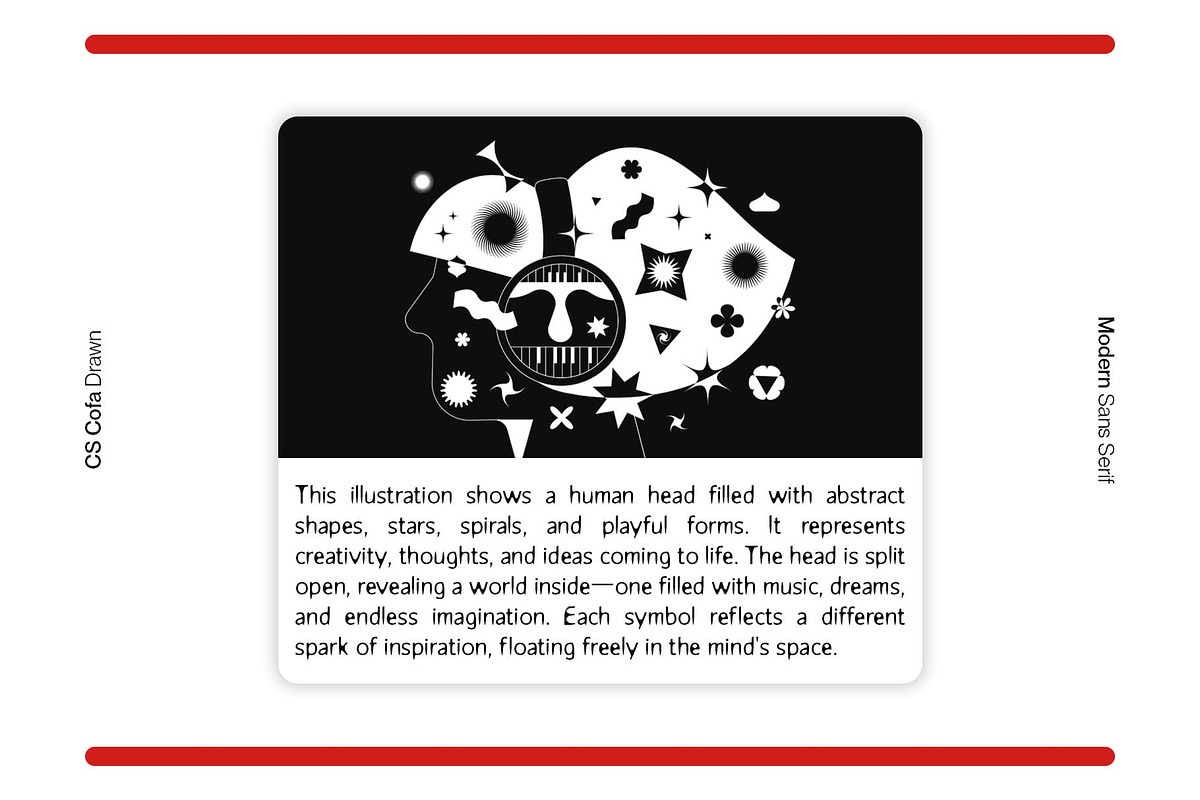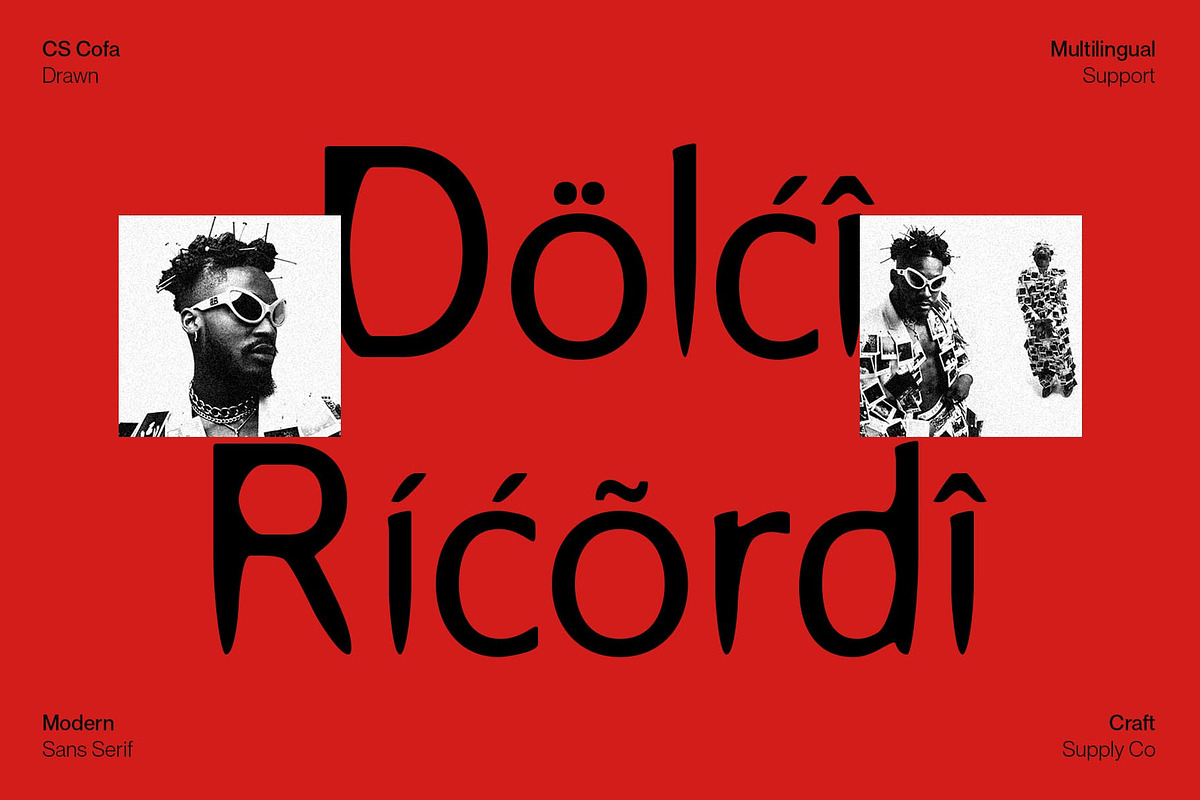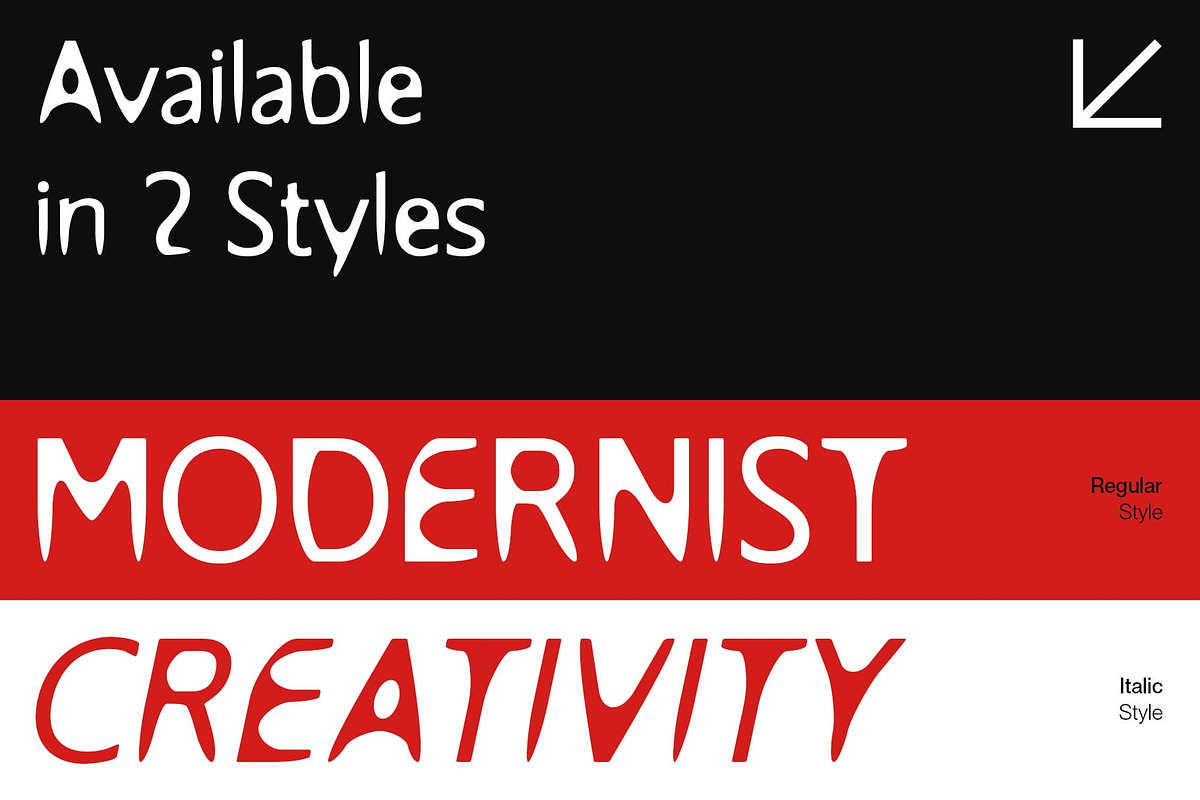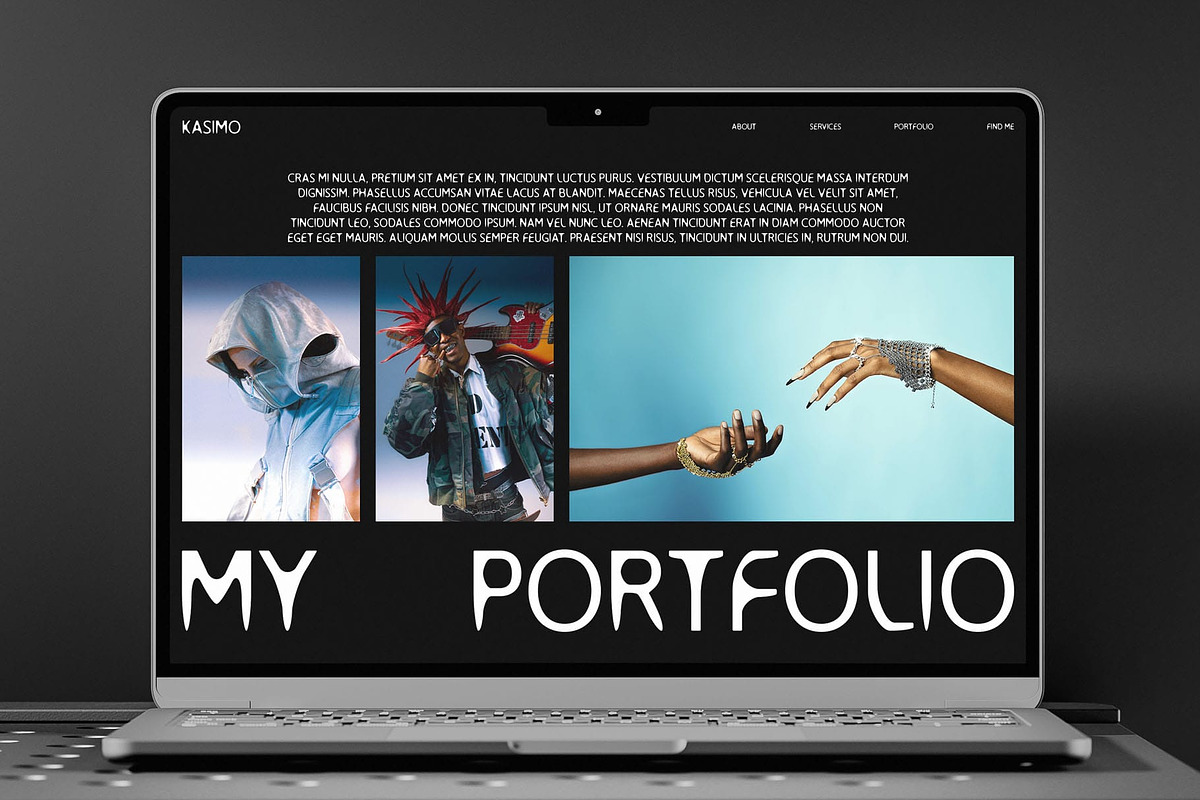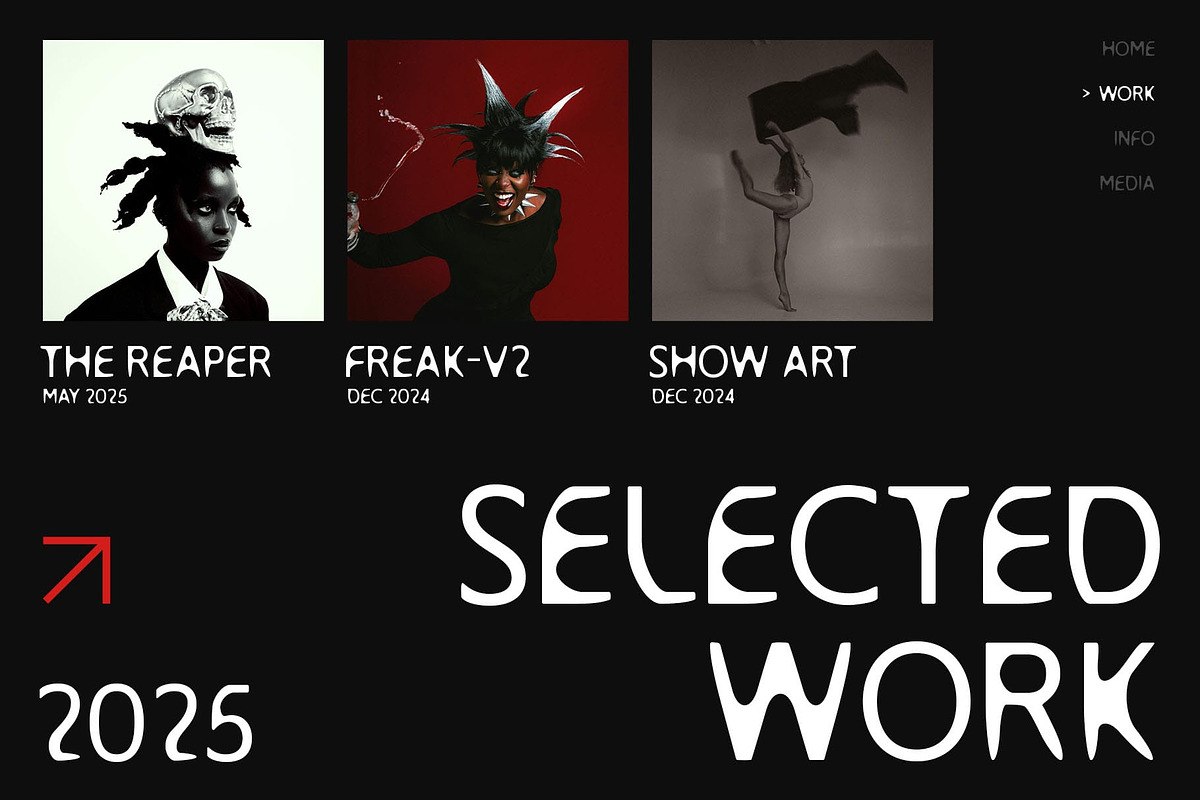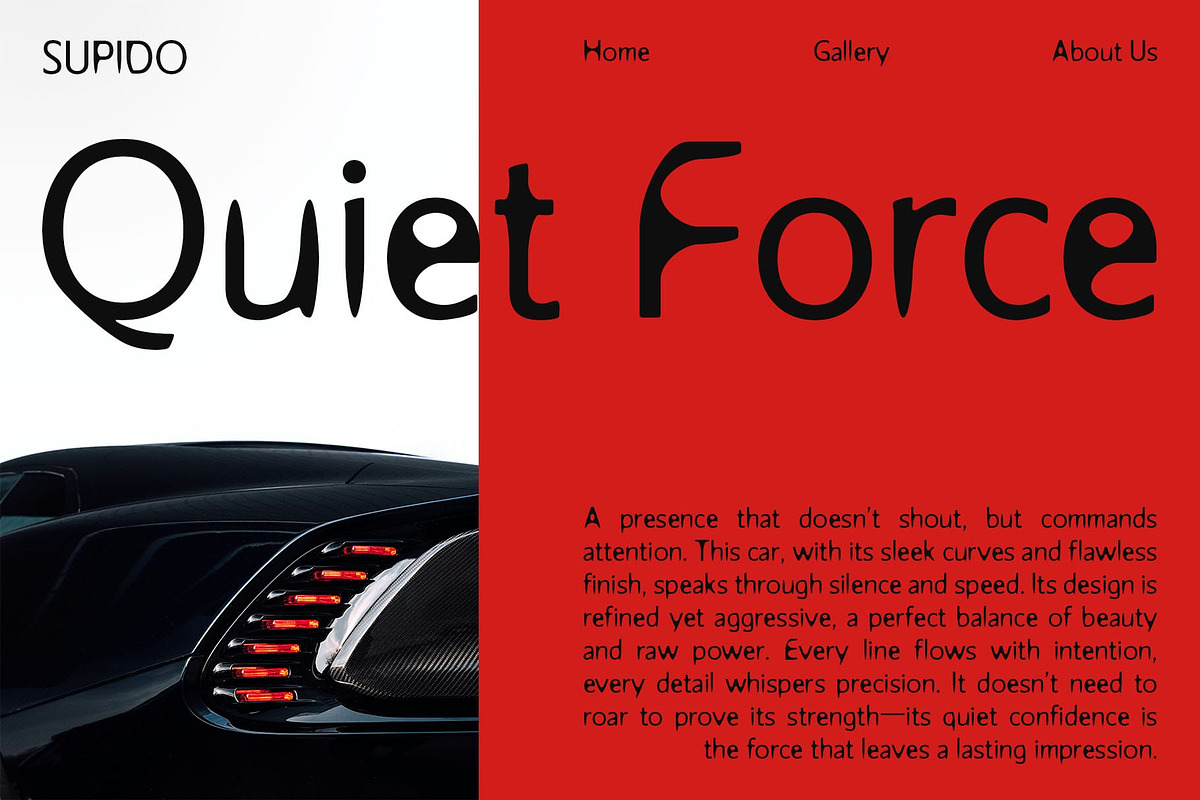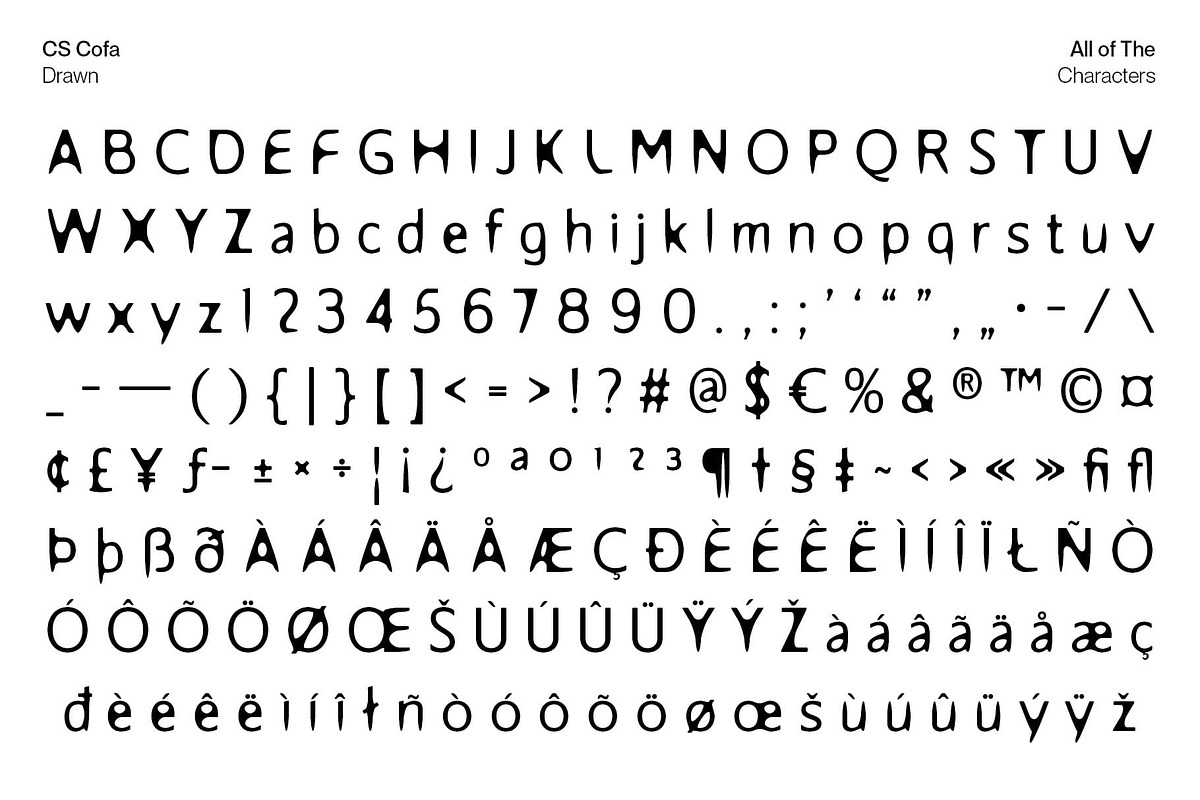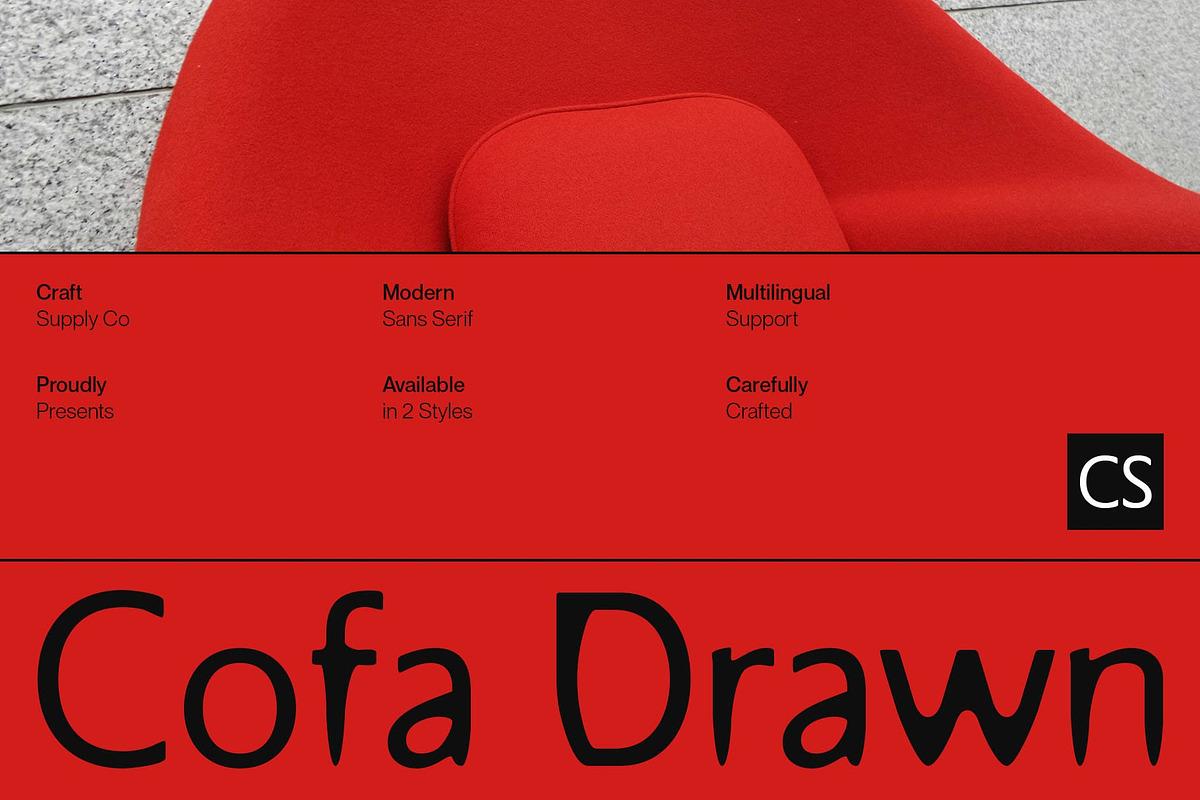
CS Cofa Drawn
CS Cofa Drawn Font – Organic Meets Precision in a Contemporary Sans Serif
Clean Geometric Form with a Humanistic Twist CS Cofa Drawn is a modern sans serif font that features sleek, clean lines and a precise geometric structure. Its foundation is rooted in clarity and professionalism, yet softened by a hand-drawn texture that adds warmth and individuality. This unique blend of structure and artistry results in a typeface that feels both modern and approachable.
Drawn Effect for Artistic Expression The drawn effect introduces an organic, slightly imperfect character that enhances visual depth and emotion. It gives the font a handcrafted look, ideal for projects seeking an expressive, personal touch while maintaining a polished appearance. This makes it especially suitable for branding identities, creative editorials, and artistic visual campaigns.
Balanced for Creative and Professional Use This expressive font strikes a perfect balance between creativity and professionalism. Its clean sans serif base ensures versatility across various design contexts, while the drawn detail adds distinction. Whether used in logos, posters, digital design, or brand visuals, it brings sophistication with a subtle artistic flair.
Ideal for Standout Visual Communication From creative studios to editorial layouts and expressive websites, this humanistic font enhances visual storytelling that commands attention. Its character-rich style makes it the perfect choice for designers who value clarity with character—offering both originality and function in every letterform.